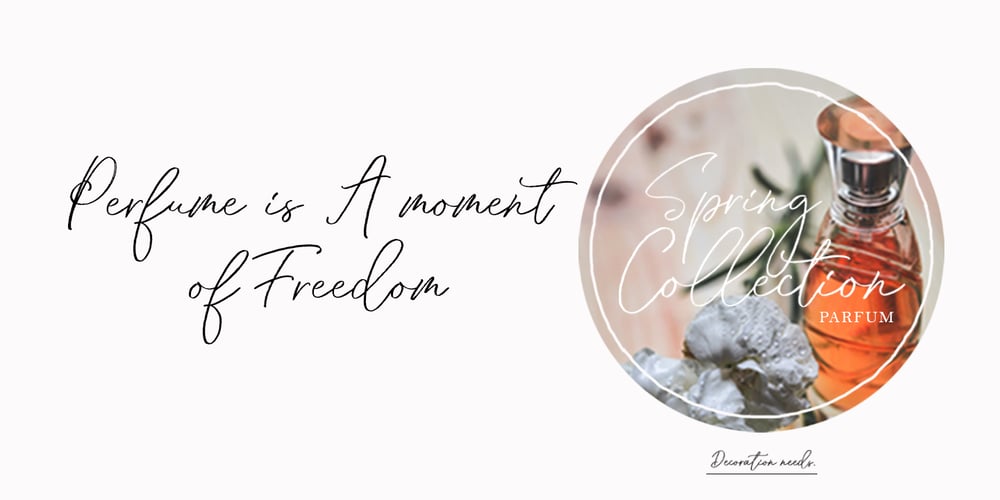
Through Brush Font Family was designed by Alam Syahril and published by Realtype. Through Brush contains 1 styles and family package options. Through Brush consists of sophisticated handwriting, elegant, classy and modern. With a little bit of dirty curves it is made from the new trend typefaces now to look as close as possible to the natural brush writing, Through Brush is perfect for adding a modern and classy touch to your project.